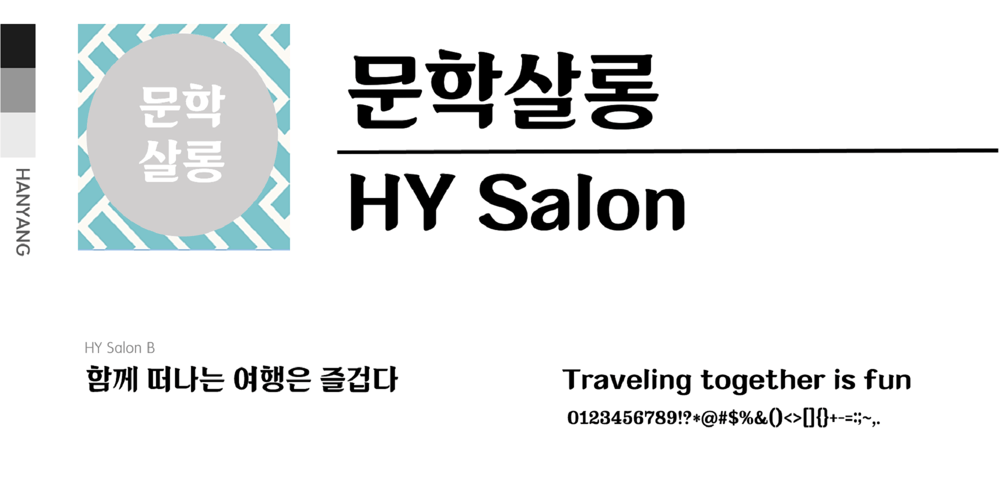
HY Salon Font Family was designed by font hy and published by HY Font. HY Salon contains 1 styles and family package options. This is a font where the lines are strong and the start and end of the strokes are smooth, like a brush. It is a round, large serif font that is close to a plain font, with letters packed into a square frame.It is made with a serif with a slant at the neutral top, and the ending is diagonal to show the flexibility of the stroke. There is a large difference in the thickness of the horizontal and vertical strokes, and the bottom line of the final consonants ‘ㄴ,ㄹ,ㅁ,ㅂ,’ is designed as if it is rising.Protrusions were added to the angled parts of the consonants to add a retro feel. A variety of edges and rolls are used for each bend, and the letter frame is tightly packed into a square frame. Suitable for a title.